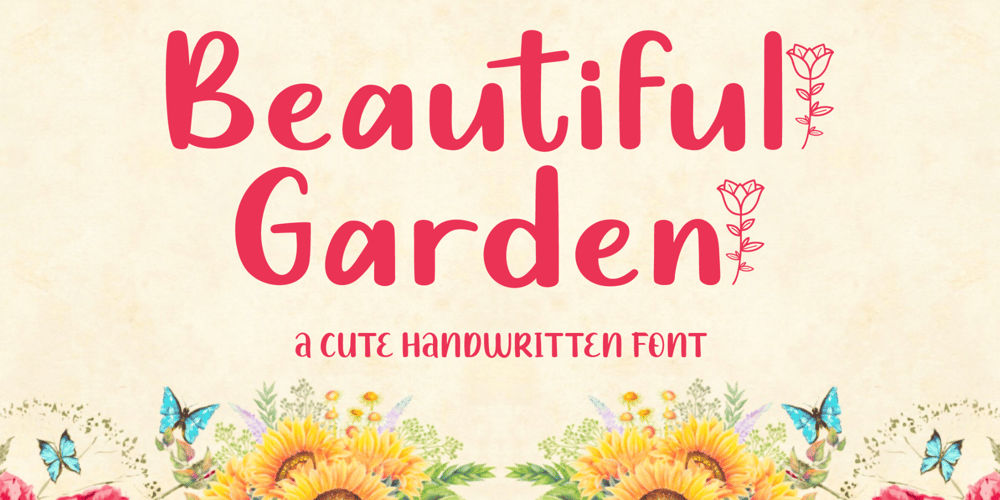
Beautiful Garden Font Family was designed by Agung Eko Nugroho and published by AEN Creative Studio. Beautiful Garden contains 2 styles and family package options. Beautiful Garden is a cute and quirky handwritten font. Exemplifying a unique blend of cuteness and beauty, these fonts breathe life into your crafts, adding a touch of personalization to your tumbler, hoodie, t-shirts, unique crafting projects, charming stickers, and greeting cards. With Beautiful Garden, there are endless possibilities to create and inspire!